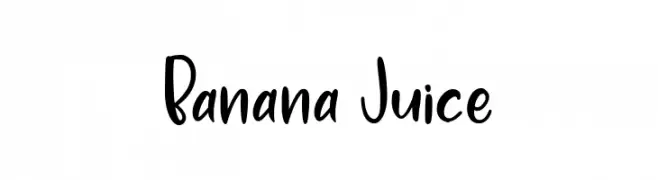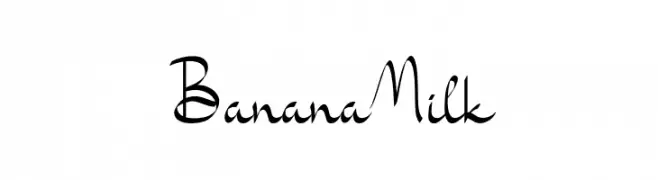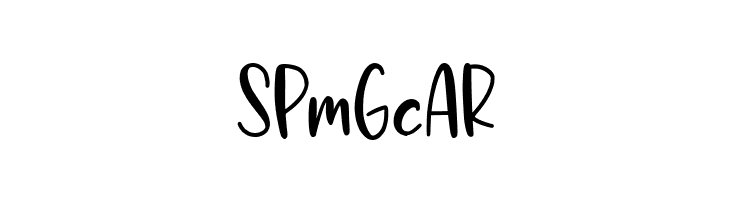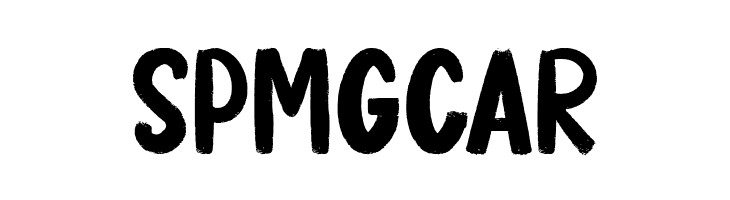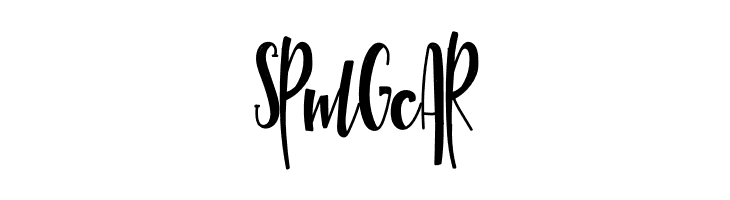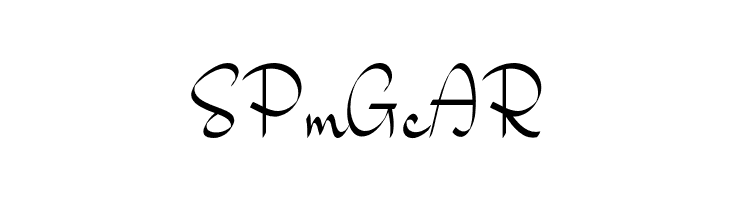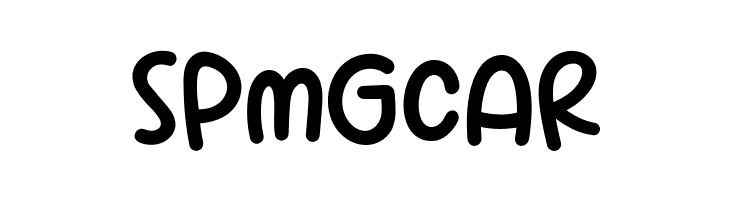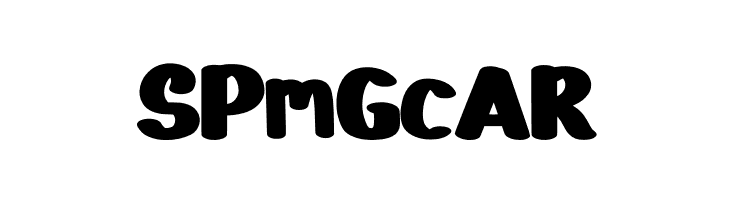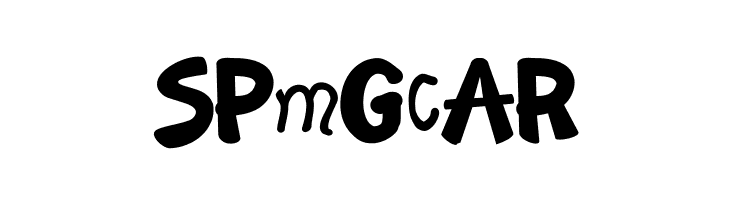
A playful, rounded, and handwritten-style font with smooth curves.
A bold, playful handwritten font with dynamic strokes and lively curves.
A playful, handwritten font with smooth, flowing lines and a casual style.
A playful and whimsical script font with fluid letterforms and dynamic curves.
A playful, handwritten script font with a whimsical style.
A bold, playful, hand-drawn font with a casual and friendly style.
A playful, hand-drawn font with bold, rounded characters.
A playful, bold typeface with rounded strokes and a hand-drawn feel.
A bold, playful font with rounded, bubbly characters perfect for fun, creative projects.